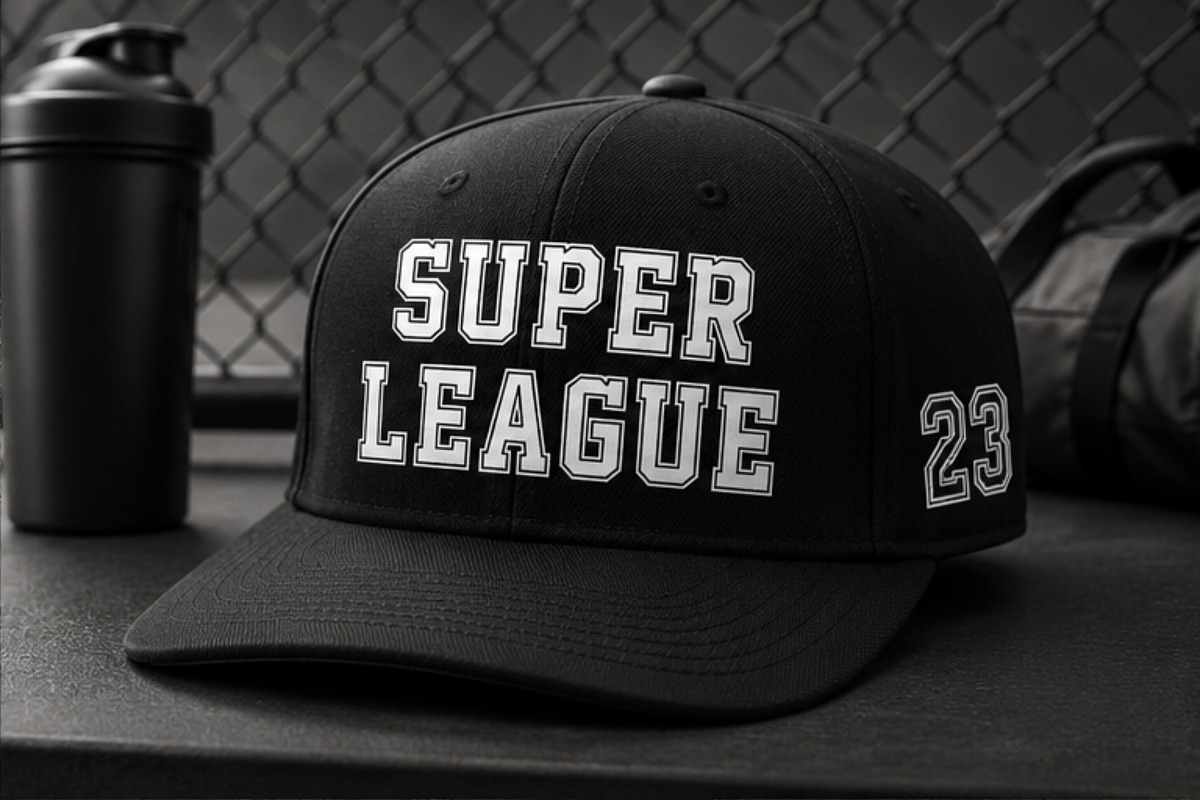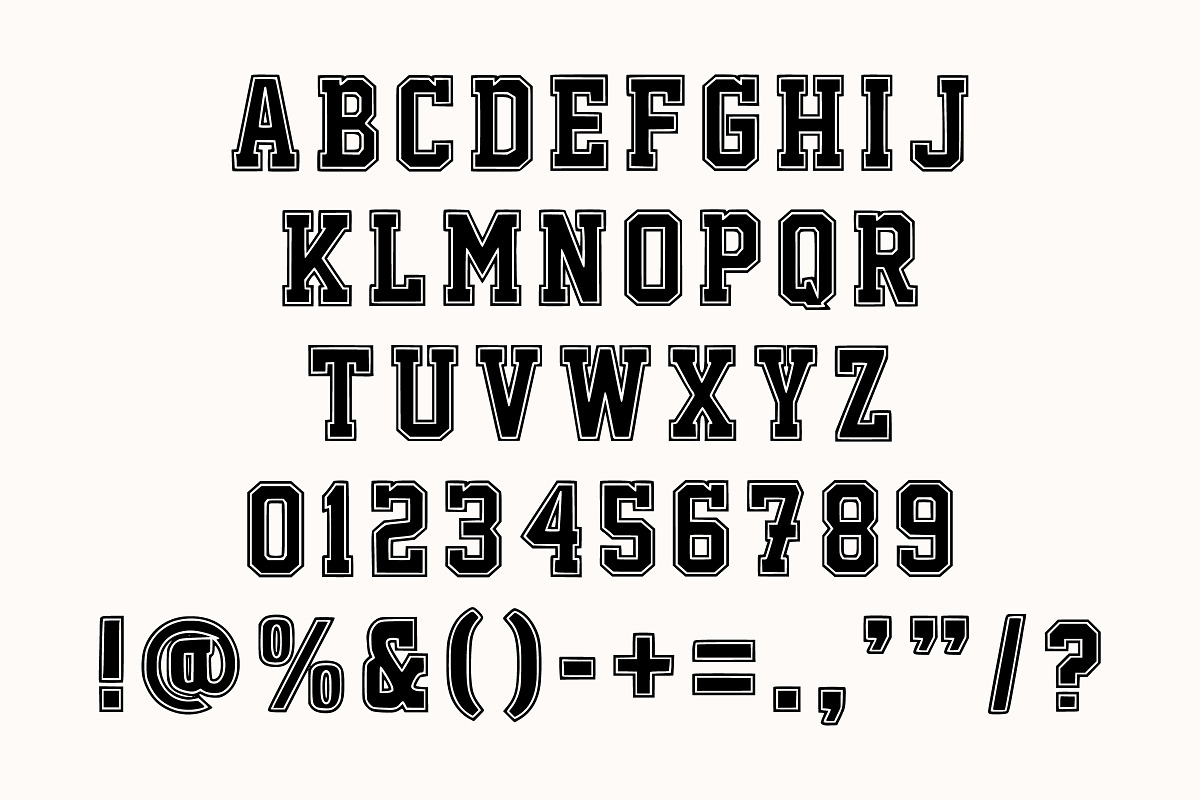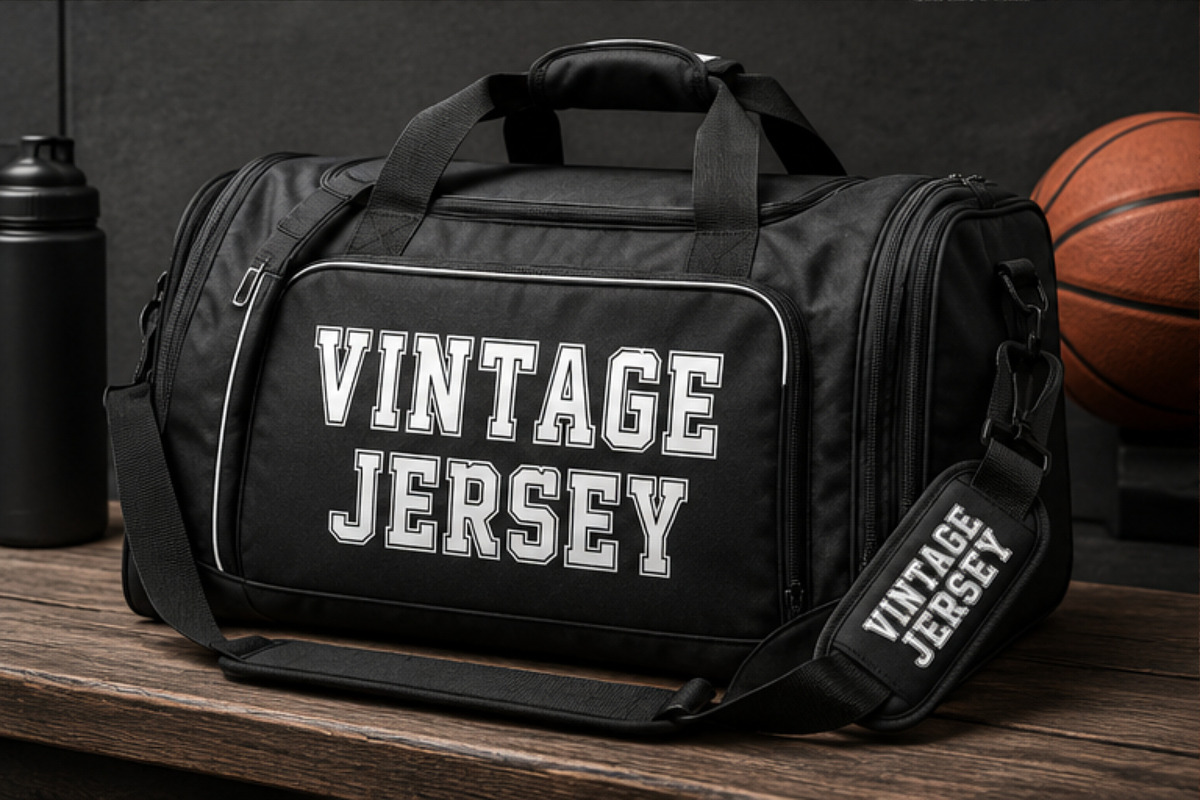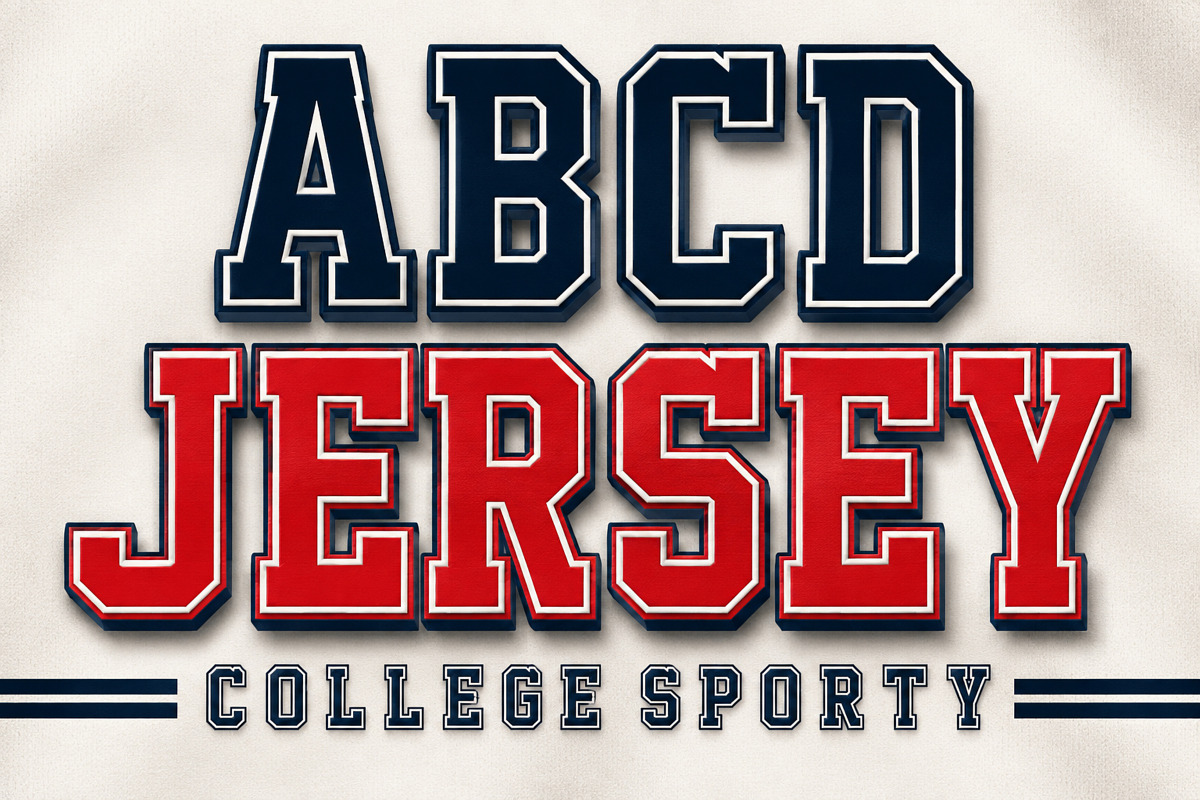
ABCD Jersey
ABCD Jersey is a bold collegiate varsity font inspired by classic American sports jerseys and college athletics. Its strong block lettering, sharp corners, and outlined appearance make it perfect for creating eye-catching sportswear, team branding, school designs, and athletic graphics.
Designed for projects that need a powerful and competitive look, ABCD Jersey works especially well on jerseys, T-shirts, hoodies, caps, posters, logos, banners, and sports merchandise.
Features Bold varsity lettering Collegiate sports style Athletic jersey-inspired design Strong and readable characters Perfect for outlines, shadows, and layered effects Suitable for both personal and commercial projects Best For Sports Jerseys College & University Designs Team Logos Baseball & Football Graphics Basketball Designs T-Shirts & Hoodies Caps & Hats School Merchandise Posters & Banners Sports Branding Cricut & Silhouette Projects